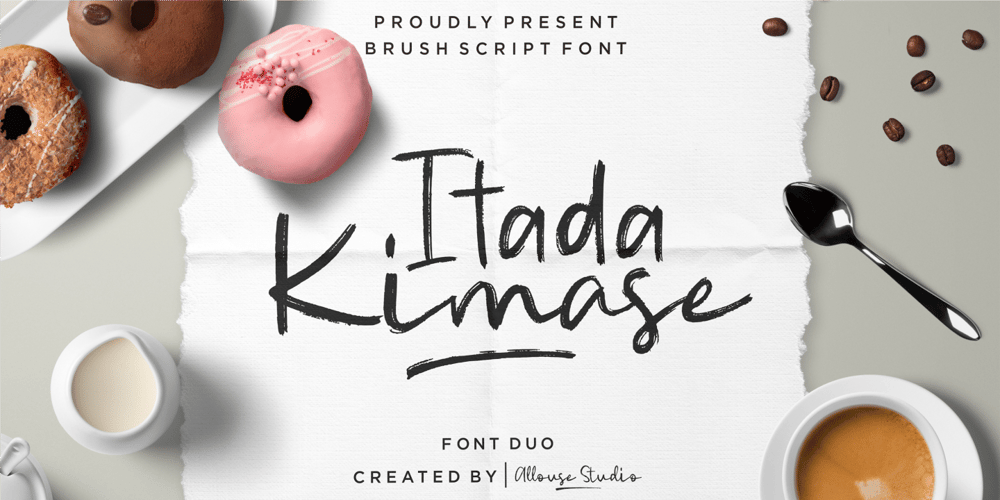
Itadakimase
Itadakimase font
Itadakimase Font Family was designed by Fachrizal Yusuf and published by Allouse Studio. Itadakimase contains 2 styles and family package options. Proudly Present, Itadakimase a Brush Font With Style. You can play around with these both to give you an a natural impression.Itadakimase come with Multi-Lingual Support, Underline Styles to fulfill your need.We highly recommend using a program that supports OpenType features and Glyphs panels like many of Adobe apps and Corel Draw, so you can see and access all Glyph variations.Itadakimase is perfect for any tittle, logo, product packaging, branding project, megazine, social media, wedding, or just used to express words above the background.Enjoy the font, feel free to comment or feedback, send me PM or email. Thank You!